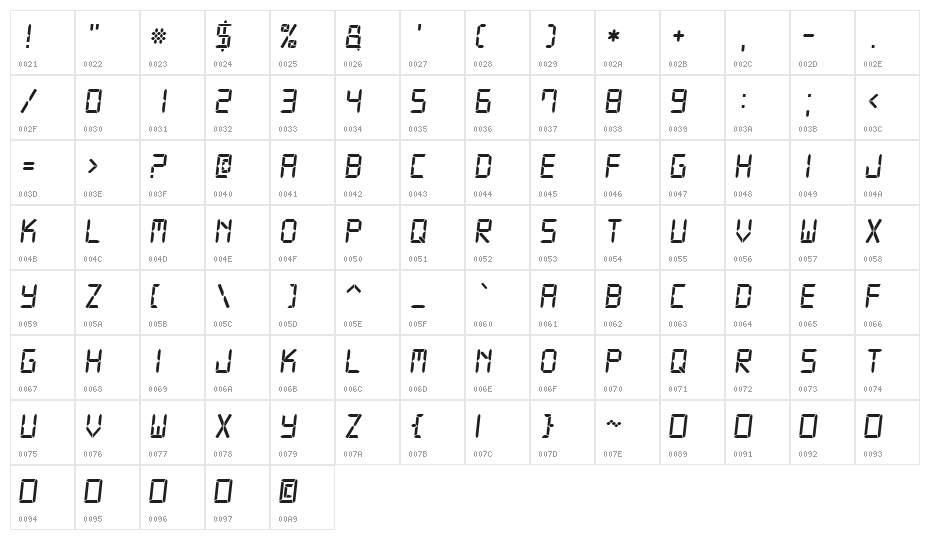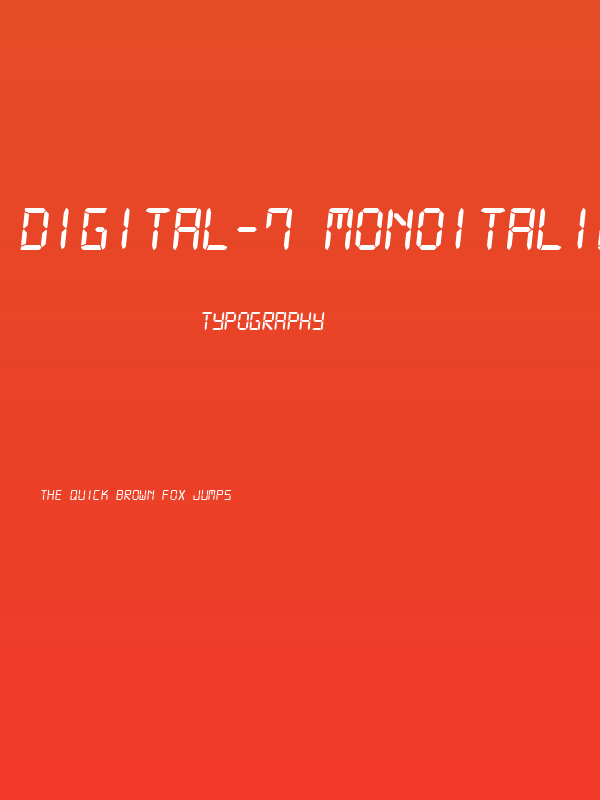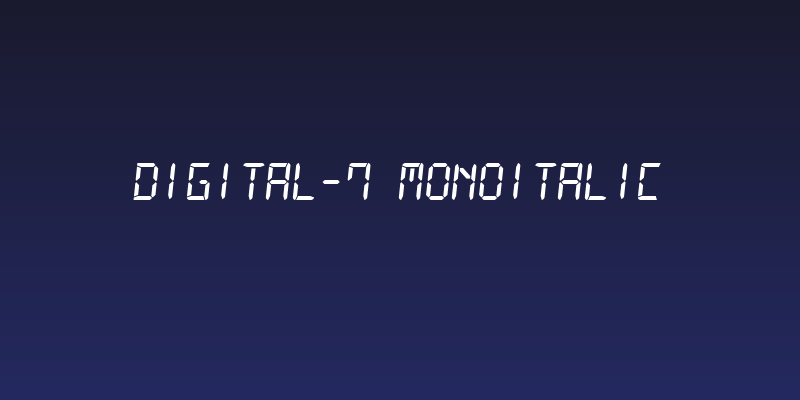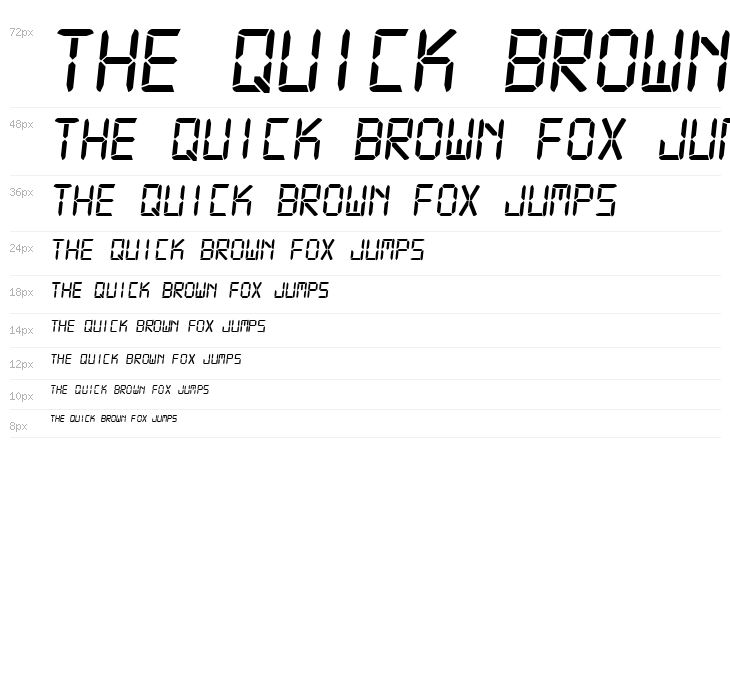
Digital-7 MonoItalic Font
Digital-7 MonoItalic Description
This font is a digital-inspired typeface that mimics the appearance of classic seven-segment displays found in digital clocks and calculators. The characters are composed of straight lines and angles, creating a geometric and technical look. The font is monospaced, ensuring each character occupies the same horizontal space, which enhances its digital aesthetic. The italic style adds a slight slant to the characters, giving a dynamic and modern twist to the traditional digital display look. This font is ideal for projects that require a futuristic or technological feel.
| Use Case | Logos, Digital displays, Tech interfaces |
| Proposed Projects | Ideal for digital-themed projects, tech-related branding, retro-futuristic designs, and electronic device interfaces. |